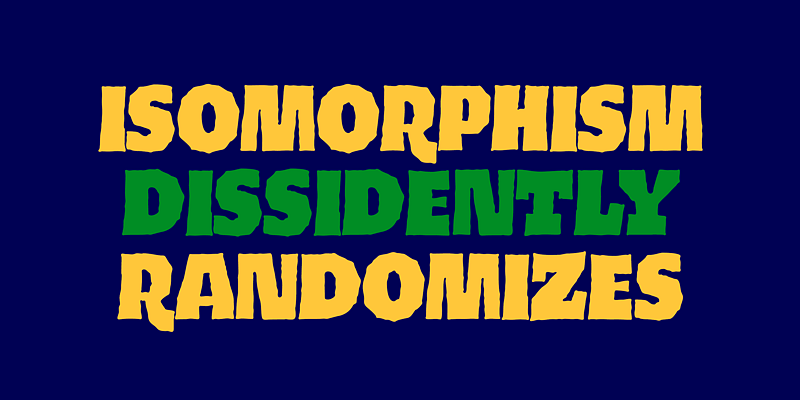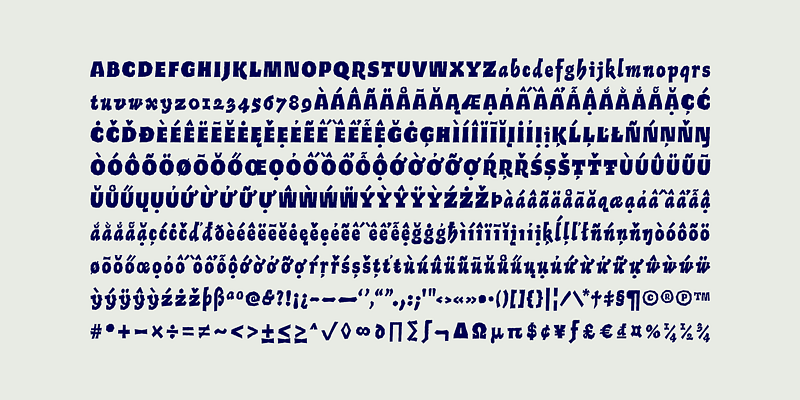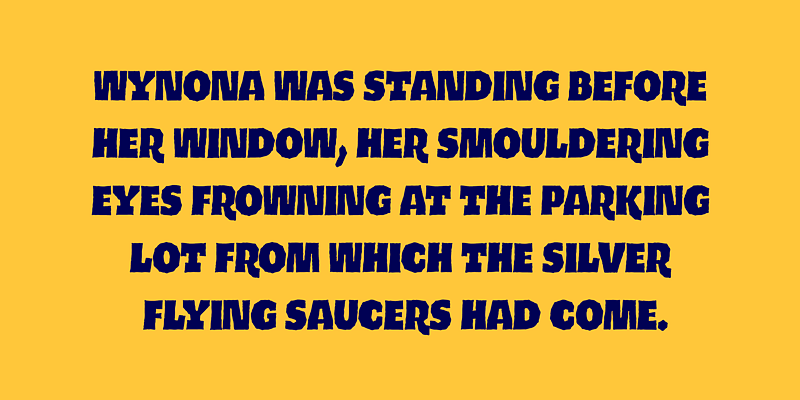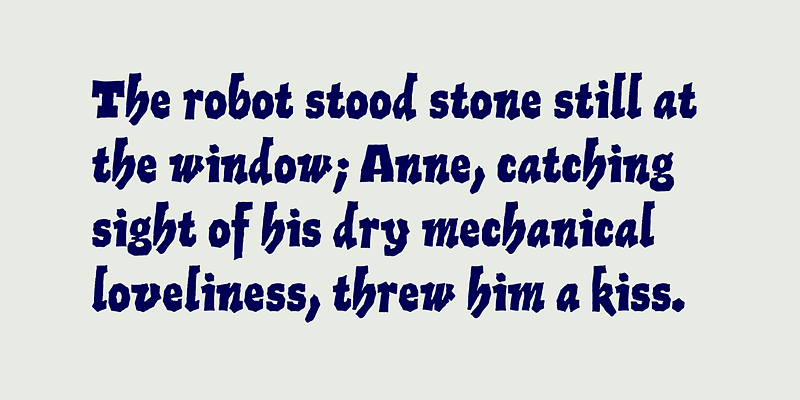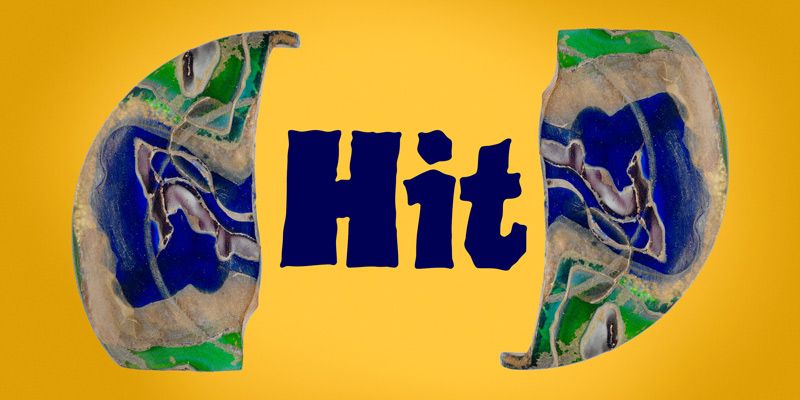
Hit makes letters feel crunchy and slightly unruly. Its thick, irregular shapes are built into the drawing rather than applied as a distress effect, so even a clean setting has the energy of something cut, pressed, or assembled by hand. It suits a snack package, street-food sign, children’s event title, or a bright animated graphic where a polished geometric face would feel too tidy. A few words are all Hit needs to set the mood.